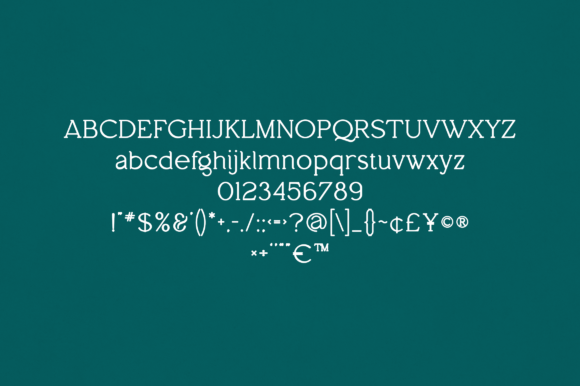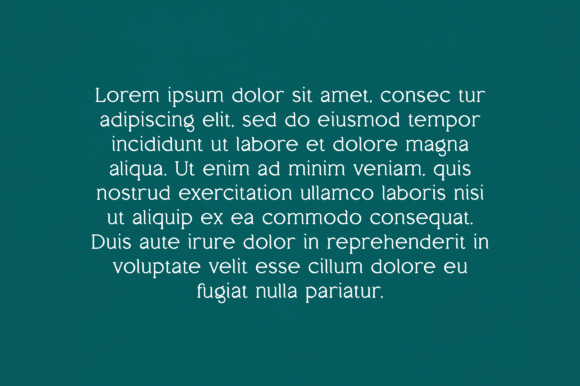
Discover the Elegance of Brigitta Font: Elevate Your Designs with Versatility and Style
In the world of typography, a font can make all the difference in transforming a design from ordinary to extraordinary. For designers and crafters seeking to infuse elegance and uniqueness into their projects, the Brigitta Font stands out as an exceptional choice. This comprehensive guide will explore the features, applications, and benefits of using Brigitta Font in various design endeavors.
What is Brigitta Font?
Brigitta is an elegant and versatile font designed to make your typography truly unique. Its sophisticated style can enchant every logo, branding, headline, or plain text, offering a wide range of creative possibilities. Whether you’re working on branding projects, home-ware designs, product packaging, or magazine headers, Brigitta Font can add a touch of class and distinction to your work.
Key Features of Brigitta Font
- Elegance and Versatility: Brigitta Font boasts an elegant design that can seamlessly adapt to various typography needs. Its versatility makes it suitable for a multitude of design applications.
- Unique Typography: With Brigitta, you can create unique and eye-catching typography that sets your designs apart from the rest.
- Wide Range of Applications: From logos and branding to headlines and plain text, Brigitta Font can elevate any design project.
Applications of Brigitta Font
Brigitta Font’s adaptability and style make it an excellent choice for a variety of design projects. Here are some of the key areas where Brigitta can make a significant impact:
- Branding Projects: Use Brigitta Font to create memorable and sophisticated brand identities that resonate with your audience.
- Home-Ware Designs: Add a touch of elegance to your home-ware designs, making them stand out with Brigitta’s refined style.
- Product Packaging: Elevate your product packaging with Brigitta Font, making your products more appealing and distinctive on store shelves.
- Magazine Headers: Create captivating magazine headers that draw readers in with the font’s elegant and attention-grabbing appearance.
- Text Overlay: Use Brigitta Font as a stylish text overlay on any background image, adding depth and sophistication to your visual content.
Benefits of Using Brigitta Font
Choosing Brigitta Font for your design projects comes with several benefits that can enhance your creative output:
- Uniqueness: Brigitta helps you achieve unique and distinctive typography that captures attention.
- Ease of Use: The font is easy to integrate into various design projects, making it a convenient choice for designers.
- Versatility: Its adaptability across different design applications makes Brigitta a valuable addition to your font collection.
- Elegance: The elegant style of Brigitta adds a touch of sophistication to any design, making it suitable for high-end projects.
Tips for Maximizing the Potential of Brigitta Font
To get the most out of Brigitta Font, consider the following tips:
- Experiment with Sizes and Colors: Play around with different sizes and colors to find the perfect combination that suits your design.
- Combine with Other Fonts: Try pairing Brigitta with complementary fonts to create visually appealing and dynamic typography.
- Use in Digital and Print Media: Brigitta Font can be used effectively in both digital media, such as websites and social media graphics, and print media, like brochures and posters.
Brigitta Font is a powerful tool for designers and crafters looking to add elegance and uniqueness to their projects. Its versatility, elegance, and wide range of applications make it an excellent choice for various design endeavors. By incorporating Brigitta Font into your typography, you can create stunning and memorable designs that stand out in a crowded creative landscape. Whether you’re working on branding projects, home-ware designs, product packaging, or simply looking for a stylish text overlay, Brigitta Font is sure to enchant and elevate your typography to new heights.